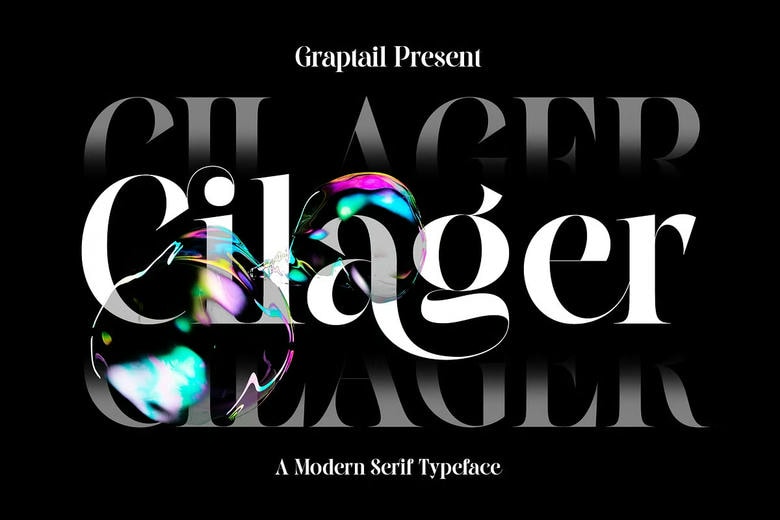
Cilager Font
Cilager is a Modern Serif Typeface that has a subtle vintage and romantic type of design that will make its every curve more appealing. I would recommend the 26 Ligatures because it makes it easier for you to create the title of each of your project including Logos, greeting cards, quotes, posters, Branding, business cards, postcards, movie titles, blog headers, art quotes, Typography, magazines and many other related ones.
Cilager Serif Font